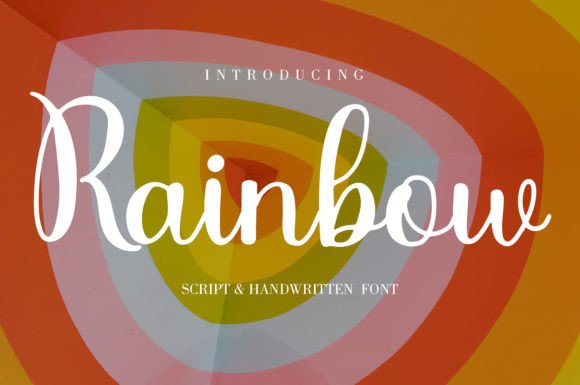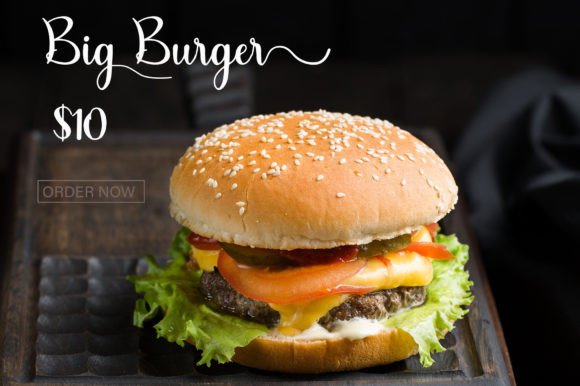
About Rainbow Font
“Rainbow” is a delightful and whimsical script handwritten font that adds a sense of fun and playfulness to your design projects. This charming font is designed to captivate your creative spirit and elevate your projects to new heights.
“Rainbow” font embodies a joyful and carefree aesthetic that instantly infuses your designs with a sense of fun and whimsy. Its playful letterforms radiate positivity and creativity, making it a perfect choice for a wide variety of creative endeavors.
Whether you’re working on greeting cards, posters, invitations, children’s book illustrations, social media graphics, or any project where a sense of delight and lightheartedness is desired, “Rainbow” is the font that will help you achieve that effect.
In the world of design, injecting a touch of playfulness and joy can be a powerful way to engage your audience and leave a lasting impression. “Rainbow” is designed to do just that, inviting your viewers to fall in love with your projects and experience the same sense of fun and delight that inspired your creative process.
In summary, “Rainbow” is more than just a font; it’s a creative companion that brings an element of fun and playfulness to your work. It’s the perfect choice for projects where you want to spread joy and positivity, making it easy for your audience to connect with your creations on a deeper, emotional level. Embrace “Rainbow” and let your imagination run wild as you embark on a creative journey filled with color and happiness.